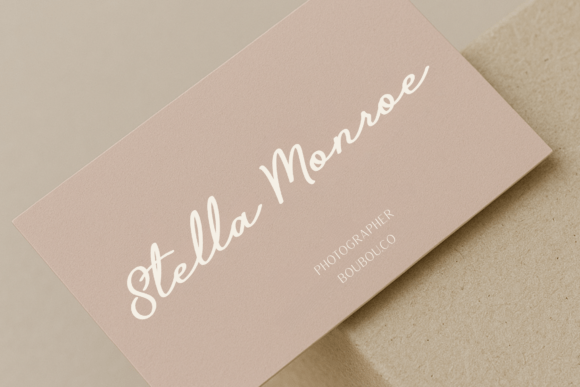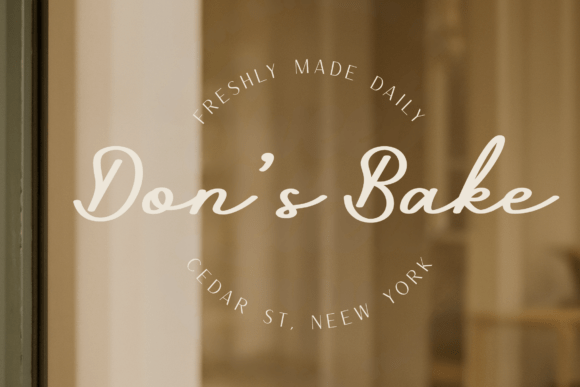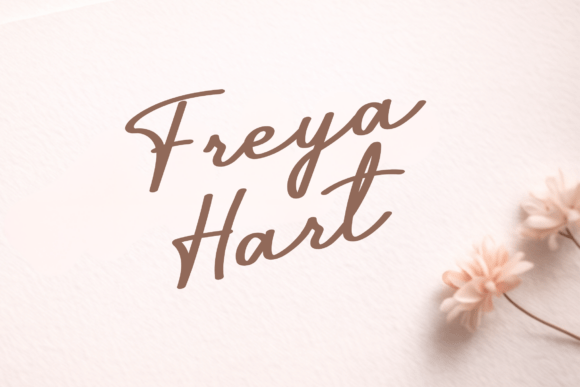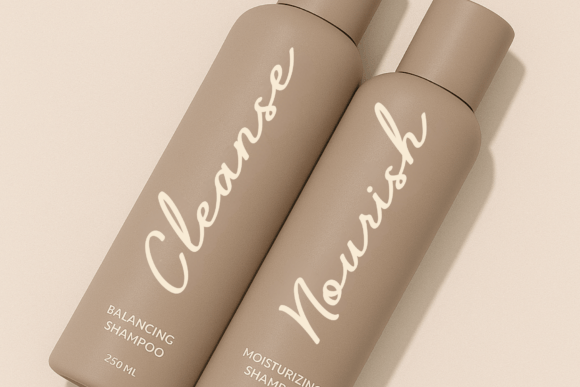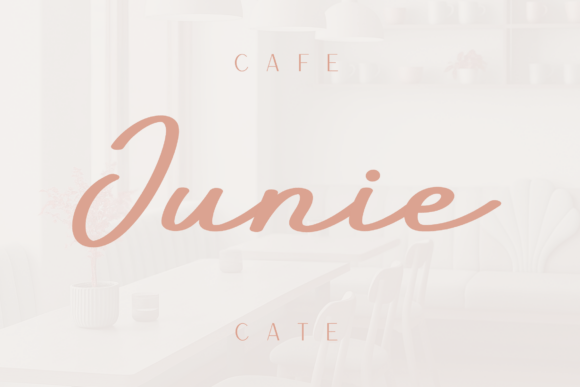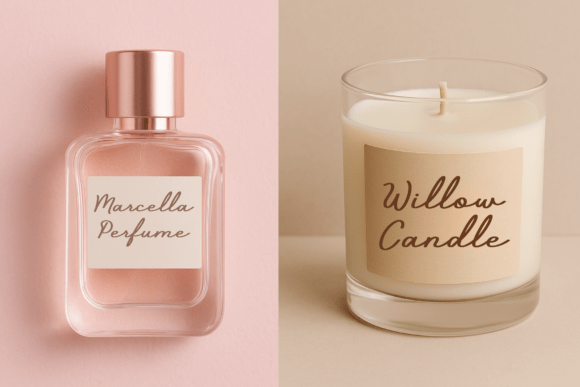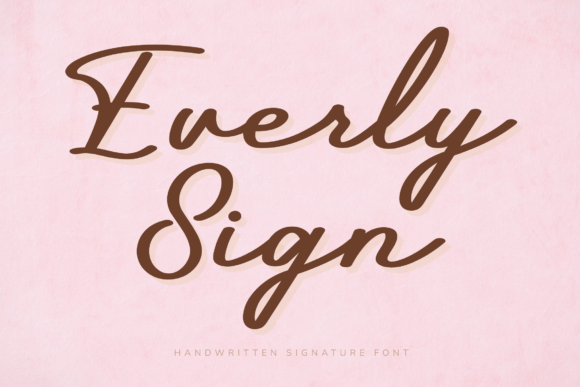
Introducing Everly Sign Font: Elevate Your Designs with Elegance and Sophistication
Are you looking for a font that exudes luxury, femininity, and refinement? Look no further than Everly Sign Font, a beautiful handwritten signature font designed to bring a touch of elegance to your creative projects. With its flowing strokes, elegant loops, and authentic handwritten feel, Everly Sign is the perfect choice for designers and crafters seeking to add a sophisticated touch to their work.
The Inspiration Behind Everly Sign Font
Everly Sign Font is inspired by the timeless charm of the name “Everly,” which evokes a sense of romance, style, and refinement. This font is designed to capture the beauty of modern personal signatures, making it ideal for a variety of applications, from boutique branding to wedding invitations, photography logos, cosmetic packaging, and luxury stationery.
Key Features of Everly Sign Font
- Graceful and Sophisticated Design: Everly Sign Font boasts a beautiful, handwritten design that is both elegant and refined.
- Flowing Strokes and Elegant Loops: The font features flowing strokes and elegant loops, giving it an authentic handwritten feel.
- Feminine and Luxurious Touch: Everly Sign adds a soft, feminine, and luxurious touch to your designs, making it perfect for projects that require a touch of sophistication.
- Authentic Handwritten Feel: The font’s authentic handwritten feel makes it perfect for creating personalized and unique designs.
Use Cases for Everly Sign Font
Everly Sign Font is versatile and can be used in a variety of creative projects, including:
- Boutique Branding: Add a touch of elegance to your boutique branding with Everly Sign Font, perfect for logos, business cards, and packaging.
- Wedding Invitations: Make your wedding invitations truly special with Everly Sign Font, adding a romantic and sophisticated touch to your big day.
- Photography Logos: Elevate your photography logo with Everly Sign Font, perfect for creating a professional and elegant brand identity.
- Cosmetic Packaging: Add a touch of luxury to your cosmetic packaging with Everly Sign Font, perfect for high-end beauty brands.
- Luxury Stationery: Create beautiful and elegant stationery with Everly Sign Font, perfect for personal correspondence or business use.
Why Choose Everly Sign Font?
- Unique and Elegant Design: Everly Sign Font offers a unique and elegant design that will set your projects apart from the rest.
- Versatile: The font is versatile and can be used in a variety of creative projects, making it a great addition to your font library.
Everly Sign Font is a beautiful and elegant handwritten signature font that is perfect for designers and crafters seeking to add a touch of sophistication to their creative projects. With its flowing strokes, elegant loops, and authentic handwritten feel, this font is sure to elevate your designs and make them stand out. Whether you’re working on boutique branding, wedding invitations, photography logos, cosmetic packaging, or luxury stationery, Everly Sign Font is the perfect choice.